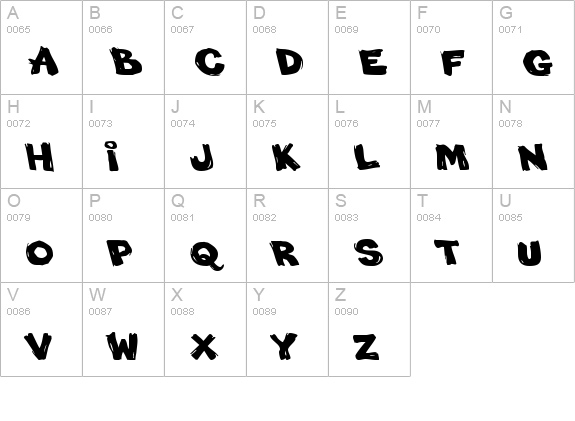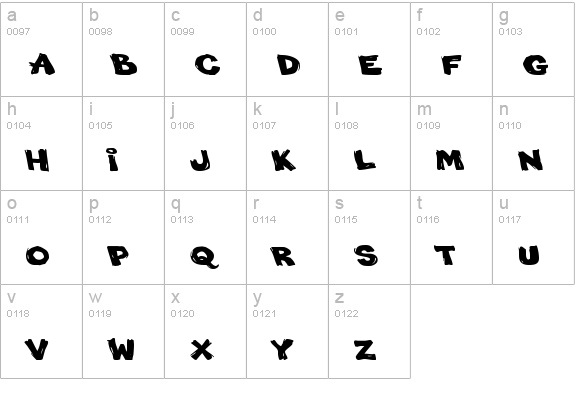
Little Piggy BTN Wide Backslant Font Details
Little Piggy BTN Wide Backslant is a distinctive, extended-width variant in the Little typeface family \xE2\x80\x94 well suited to design and typography projects.
Little Piggy BTN Wide Backslant is a charming and whimsical font that is perfect for adding a playful touch to your designs. With its unique backslant style, this font exudes a sense of fun and creativity. The rounded edges and slightly uneven letterforms give it a handmade and welcoming feel. This font is ideal for a variety of projects, from children's books to greeting cards to branding materials. Its wide backslant design adds a dynamic element to your text, making it stand out and capture attention. Little Piggy BTN Wide Backslant is versatile and can be used for both headlines and body text, making it a great choice for all kinds of design applications. Best of all, Little Piggy BTN Wide Backslant is available for free download at FontsMarket.com. This means you can easily access this delightful font and start using it in your projects right away. Don't miss out on the opportunity to add a touch of whimsy to your designs with Little Piggy BTN Wide Backslant. Download it now and let your creativity run wild!